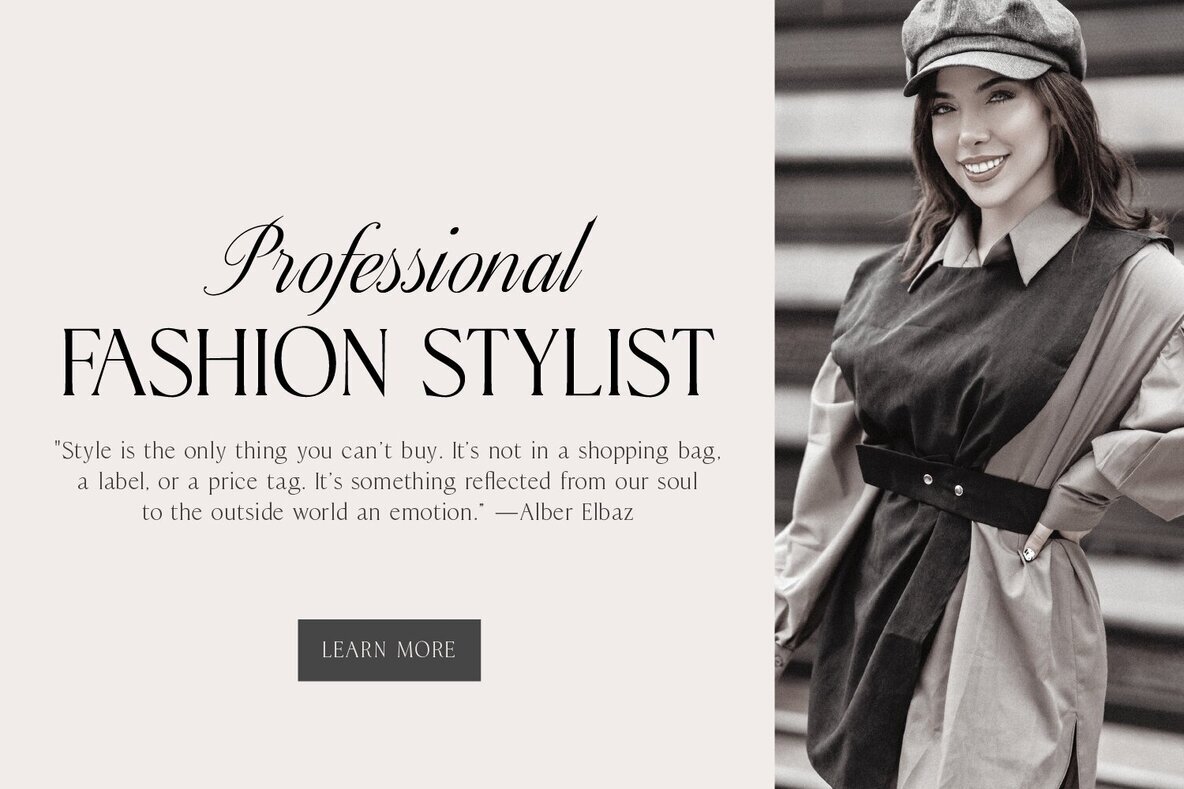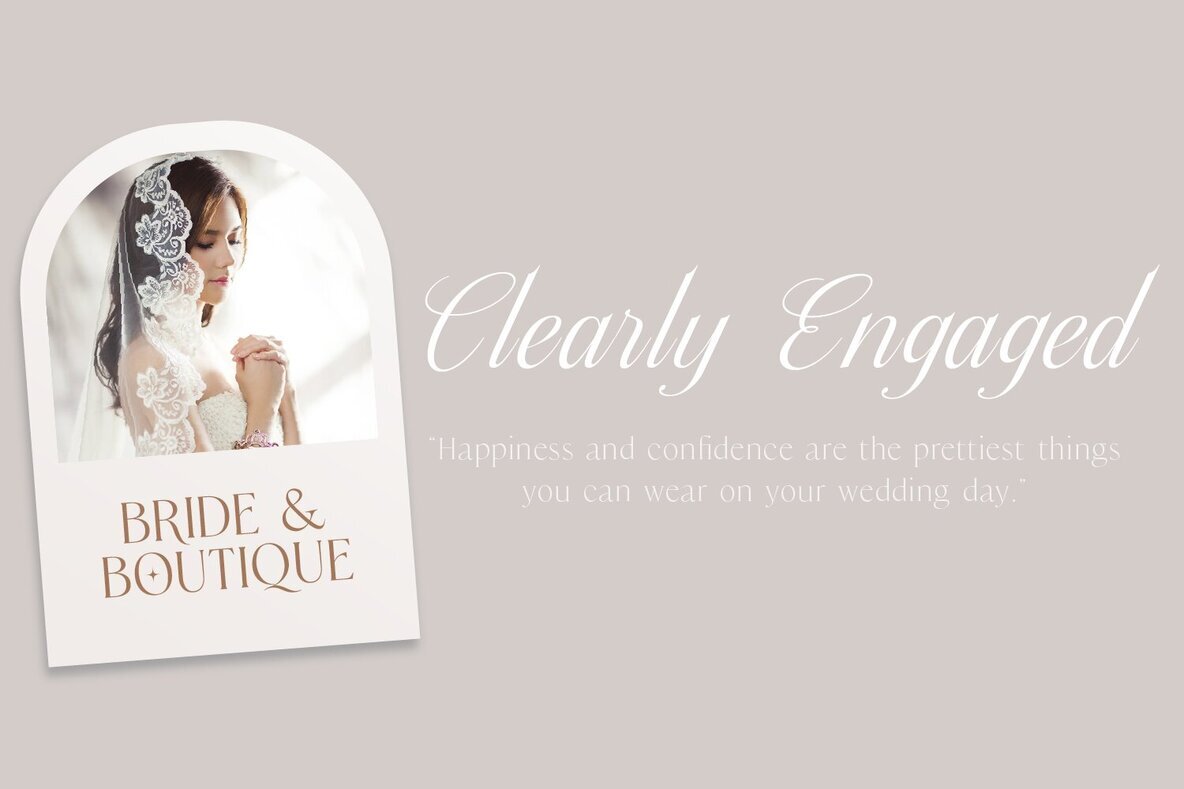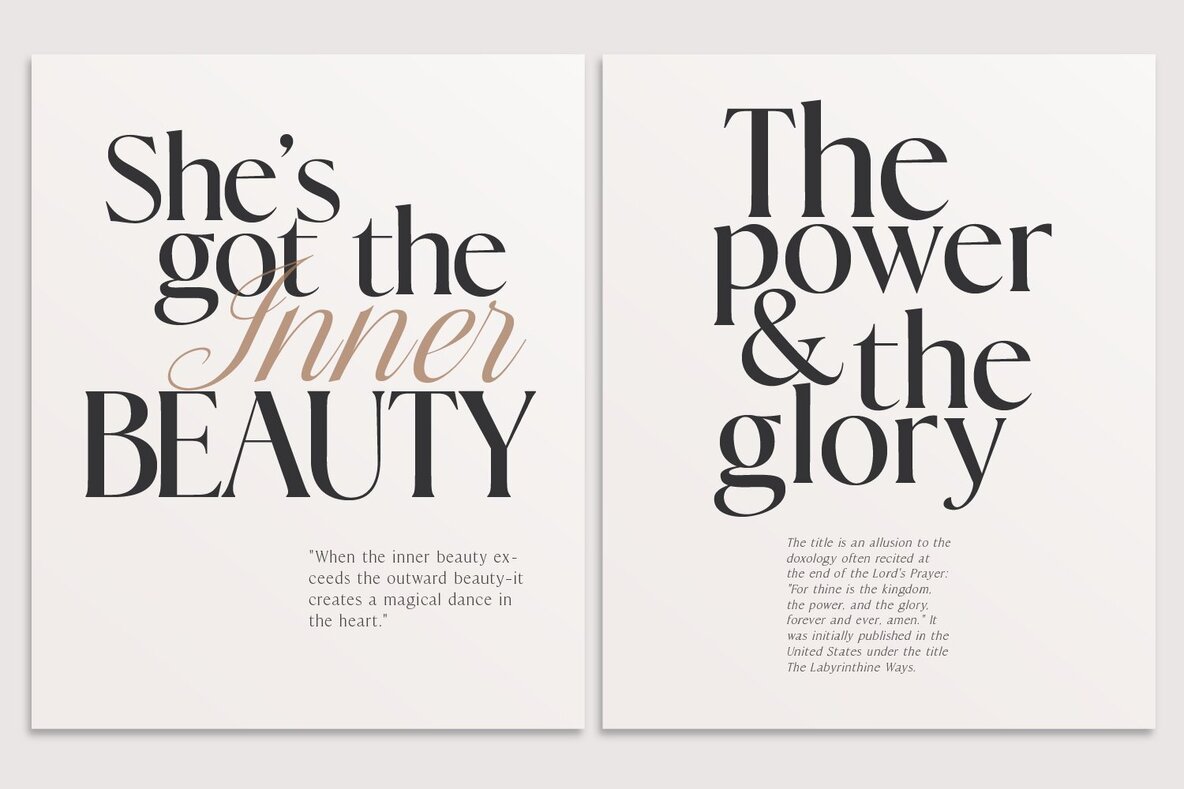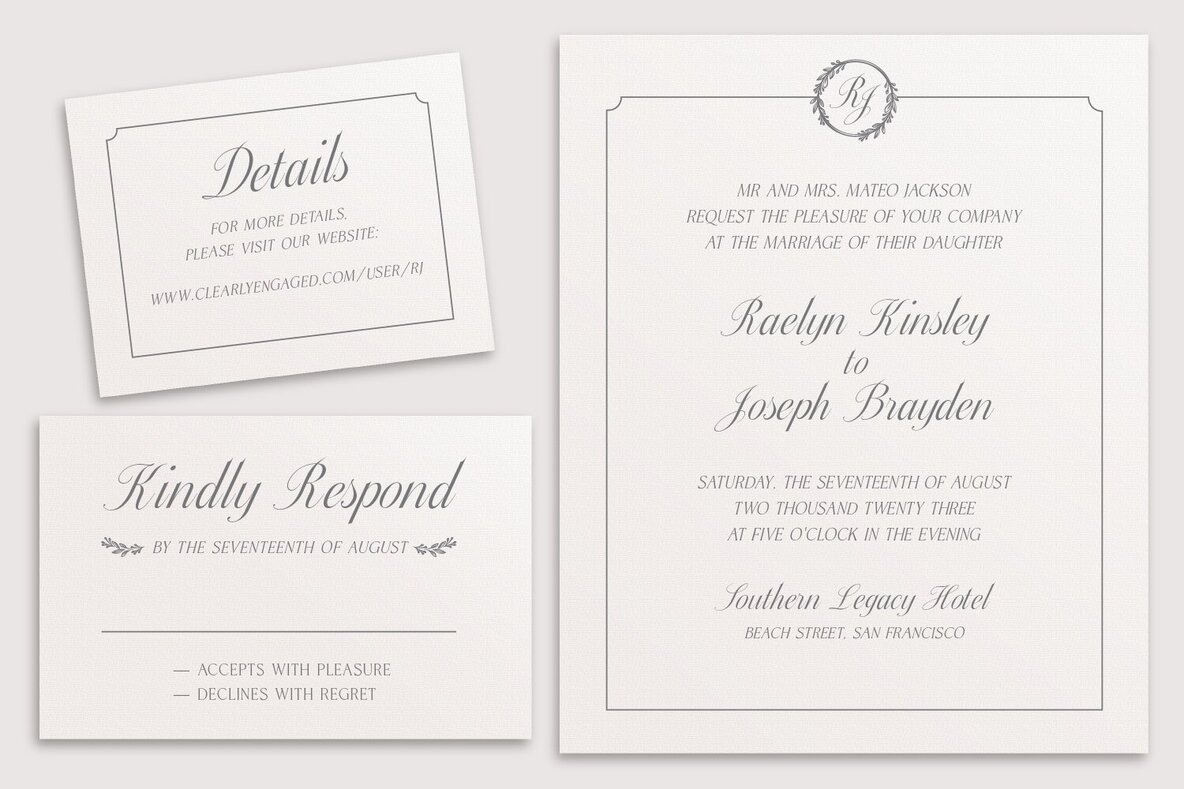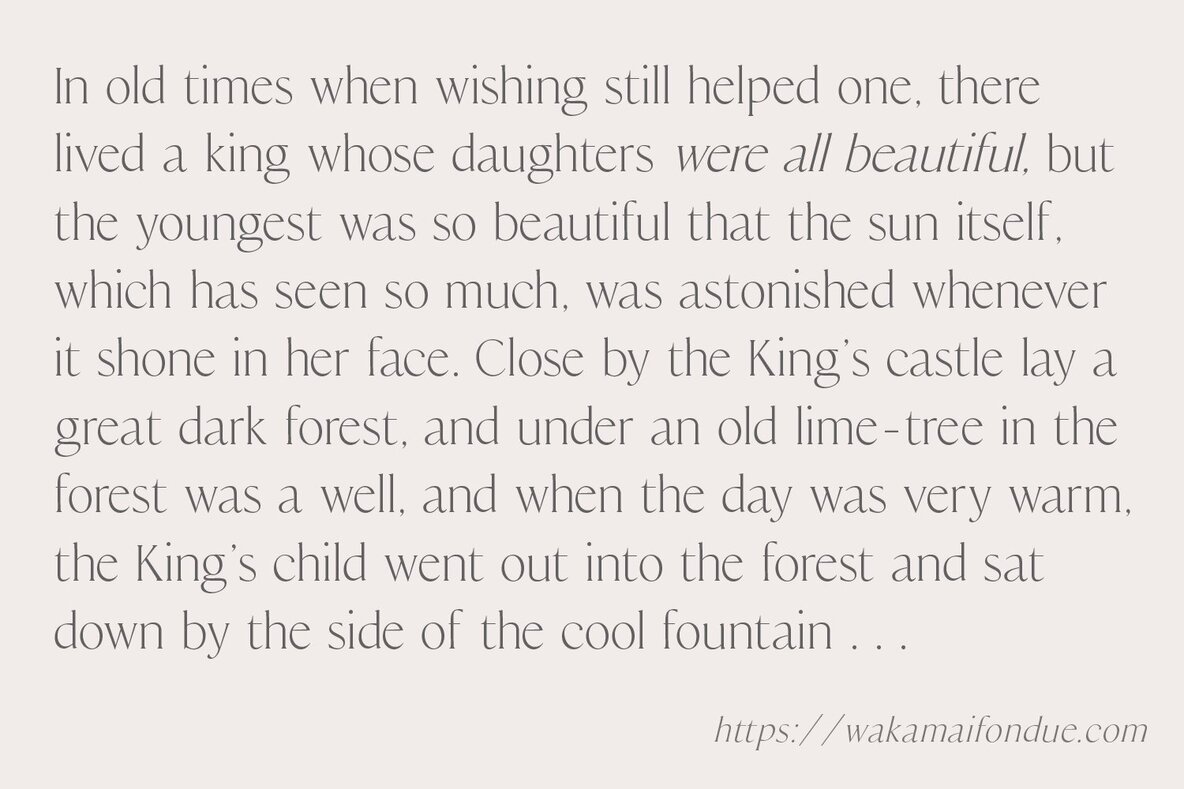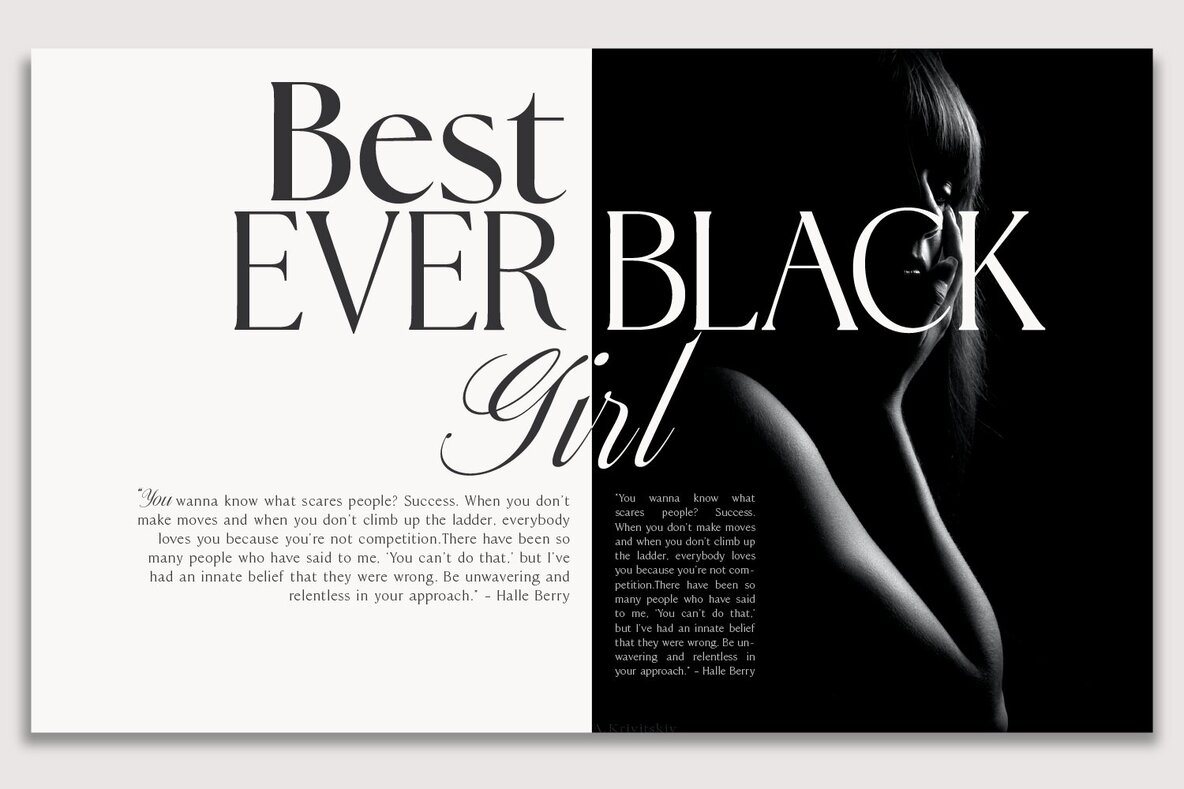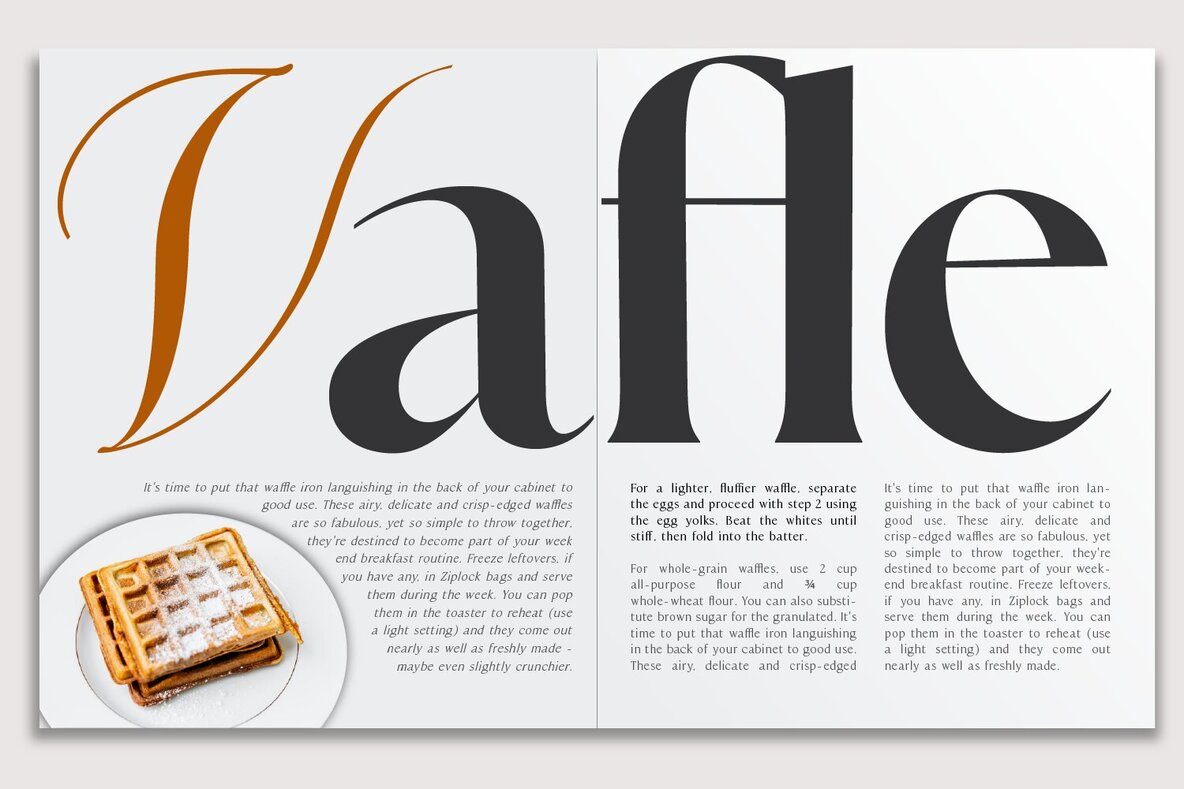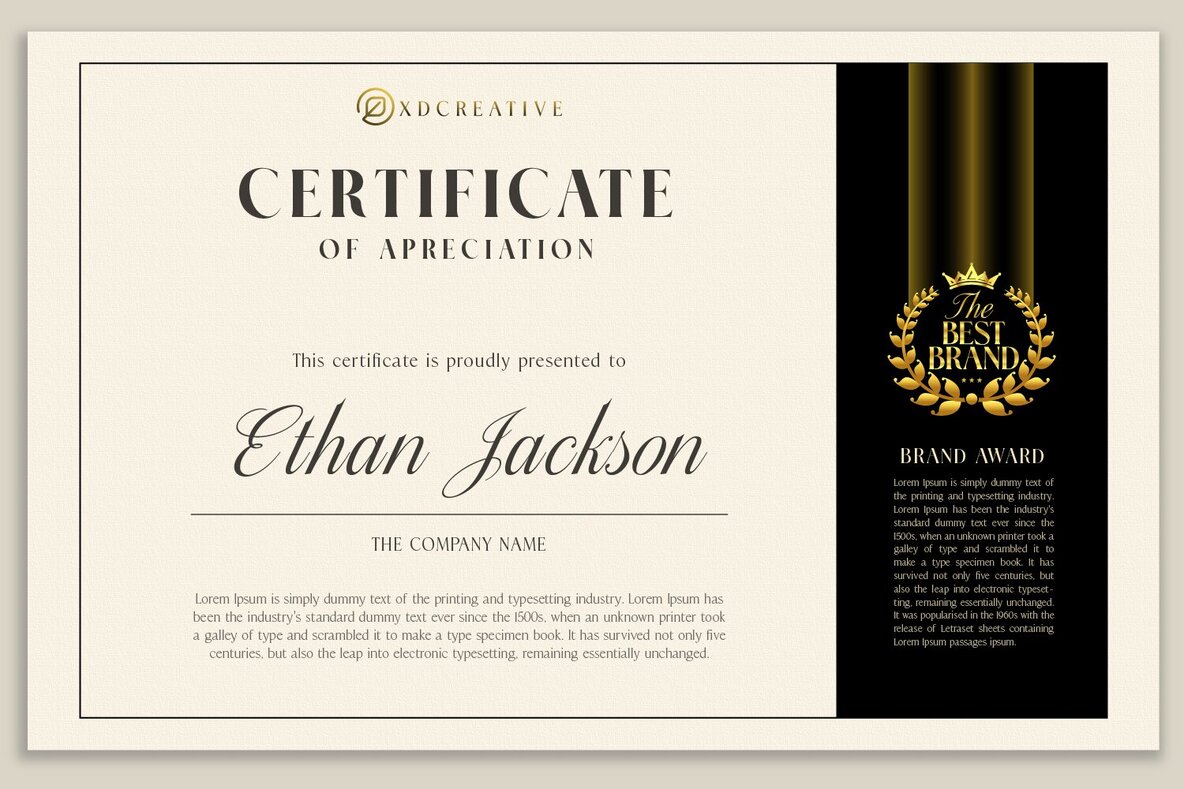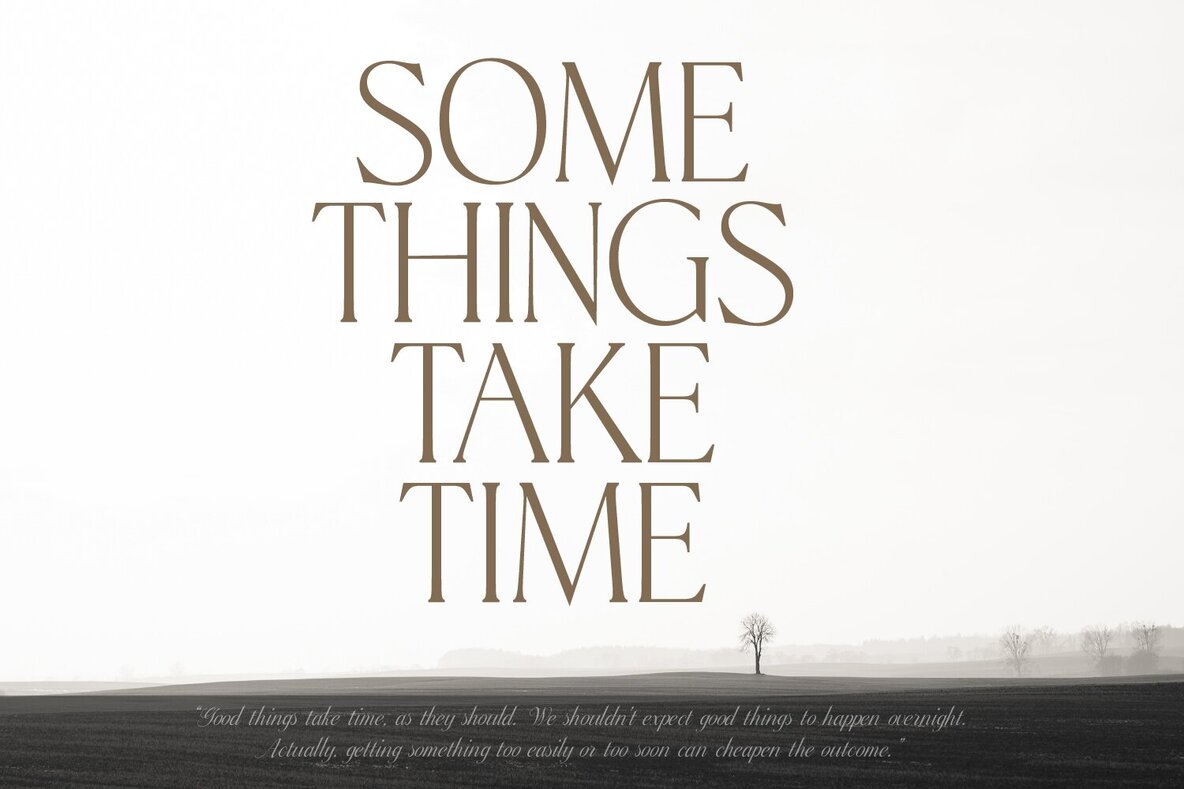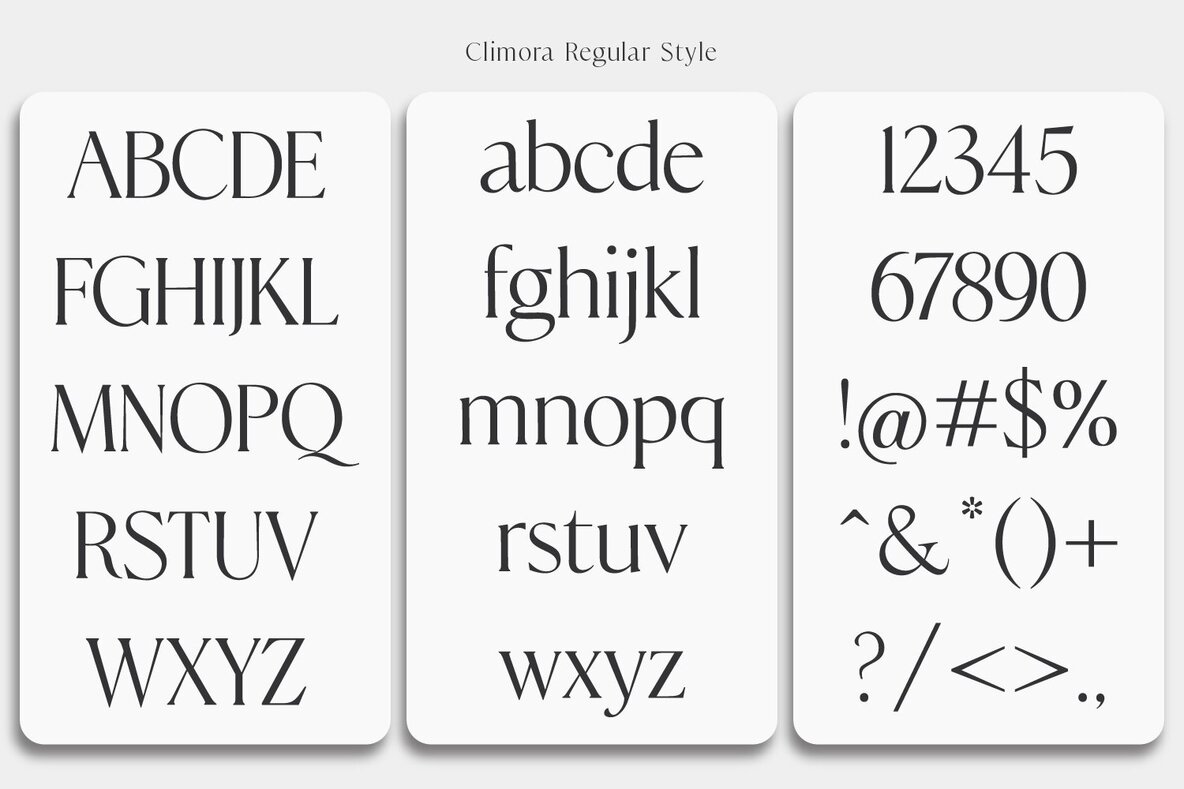
Climora Font
The Climora Font Duo Family presents CLIMORA SERIF, a typeface that blends classic old-style elements with the flowing elegance of Climora Script. This dynamic pairing is perfect for diverse design needs, offering both versatility and sophistication. CLIMORA Serif features 6 styles in 3 distinct weights - Thin, Regular, and Bold - providing a spectrum of options for your creative projects. Each style is matched with an oblique variant, ensuring your designs maintain a seamless and consistent aesthetic.
Complementing CLIMORA Serif is the graceful CLIMORA Script, enhancing your typographic expression with its elegant curves. The inclusion of multiple language support adds a refined touch to your work, making it adaptable for various audiences. Discover the timeless appeal and flexibility of the Climora Font Duo Family, and transform your designs with a sophisticated harmony of serif and script.